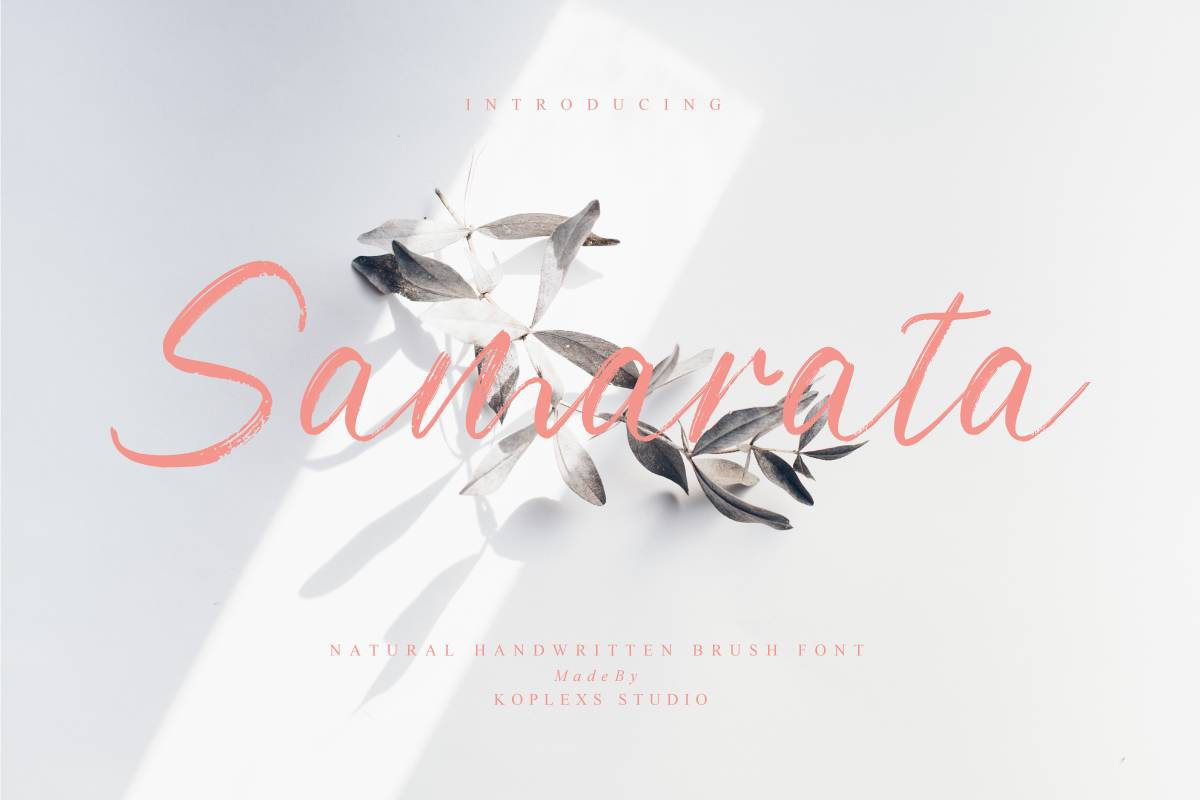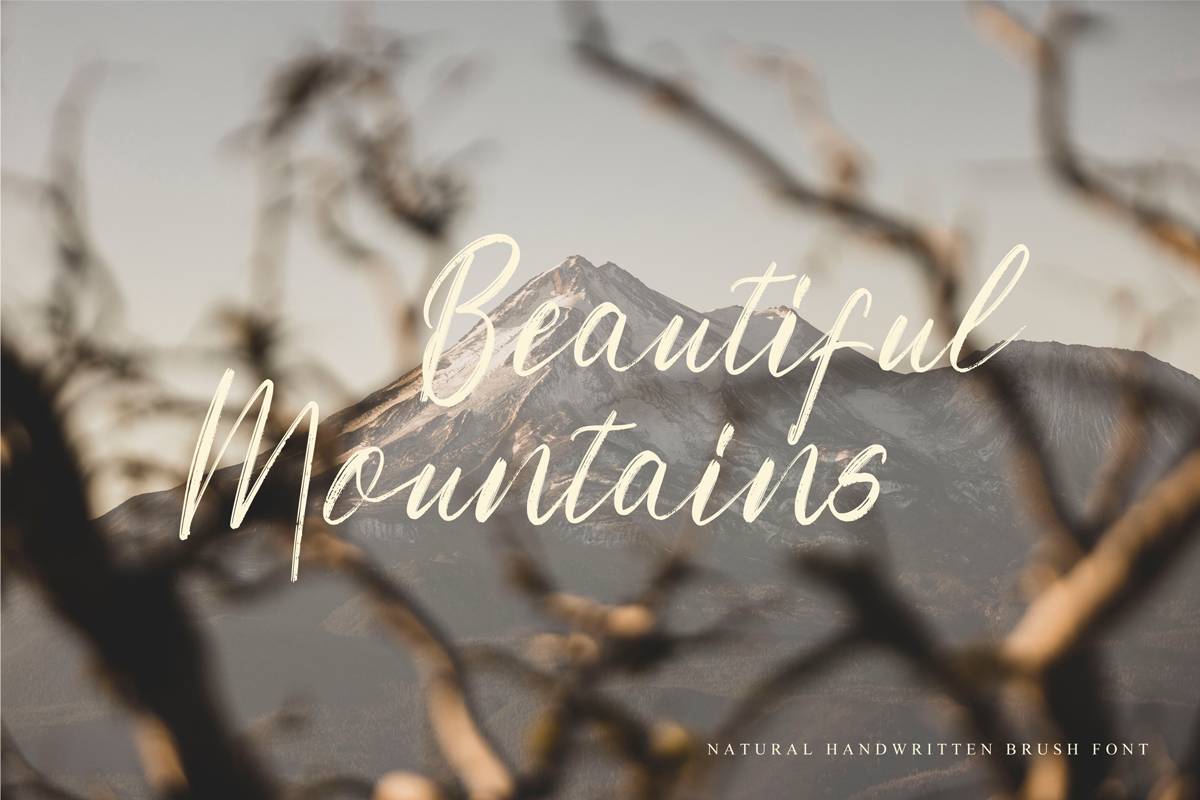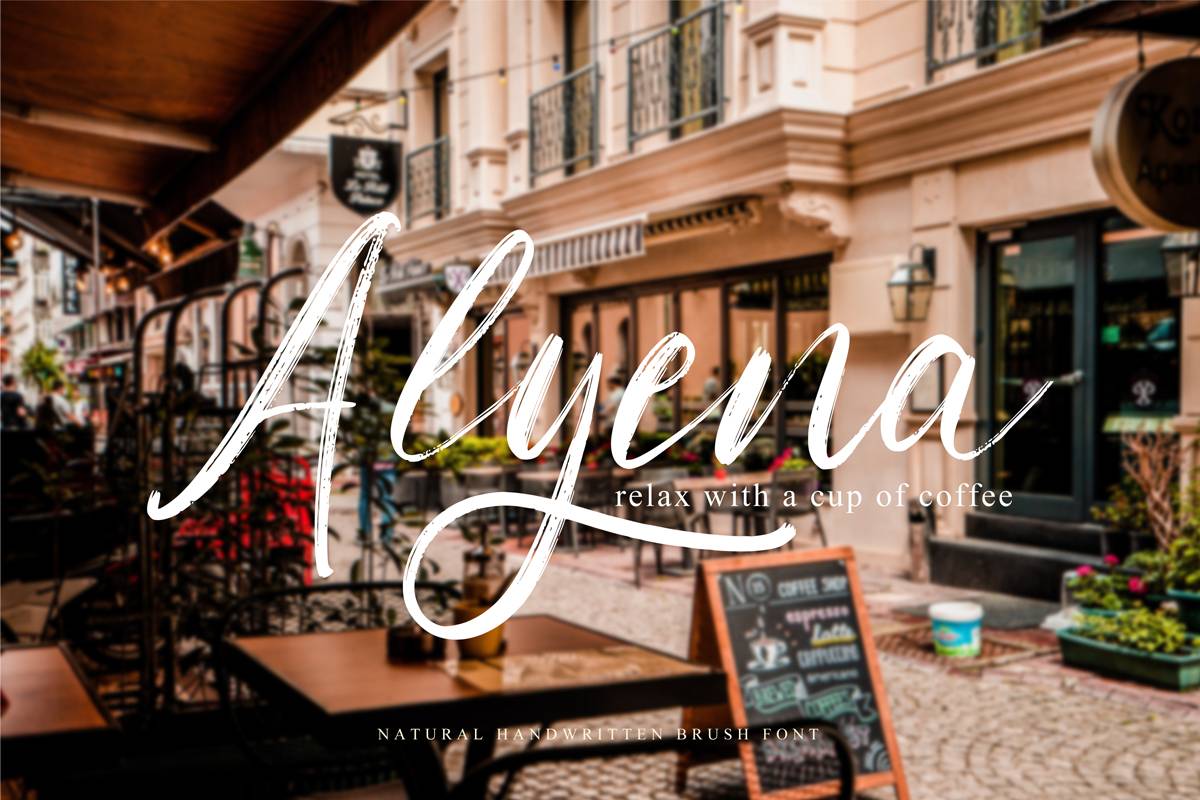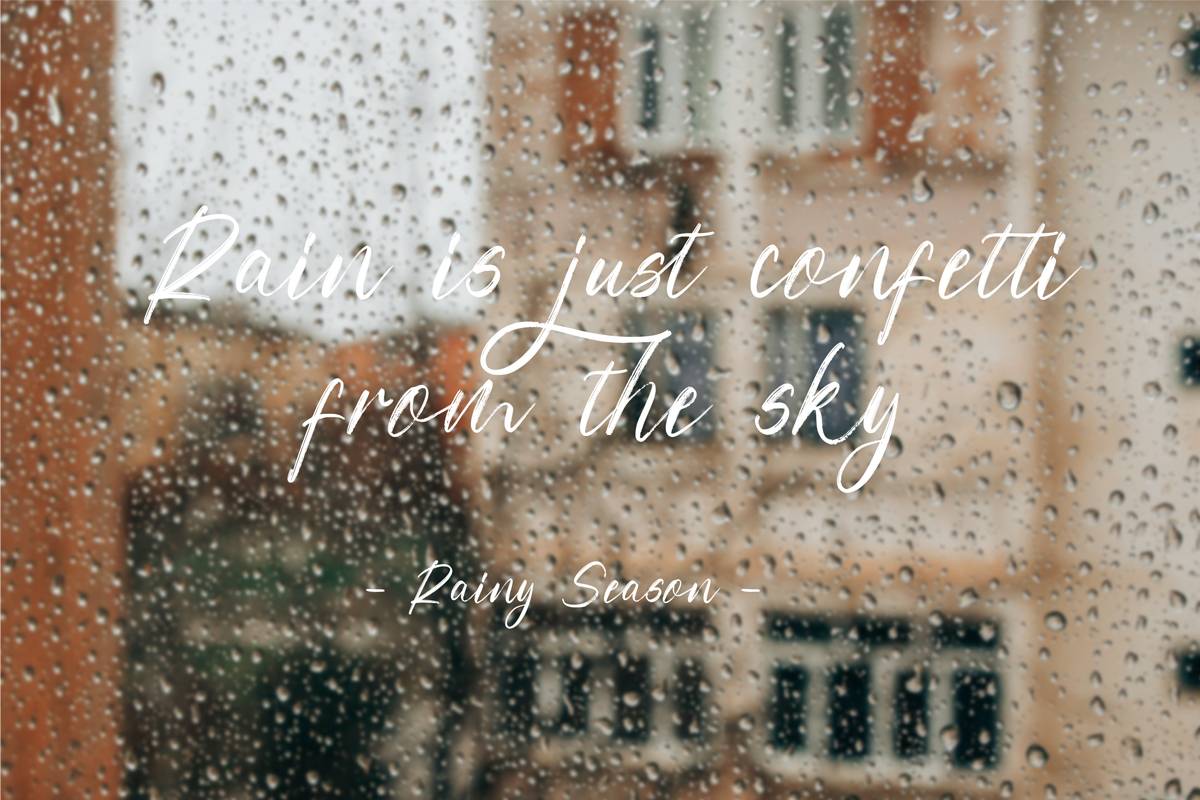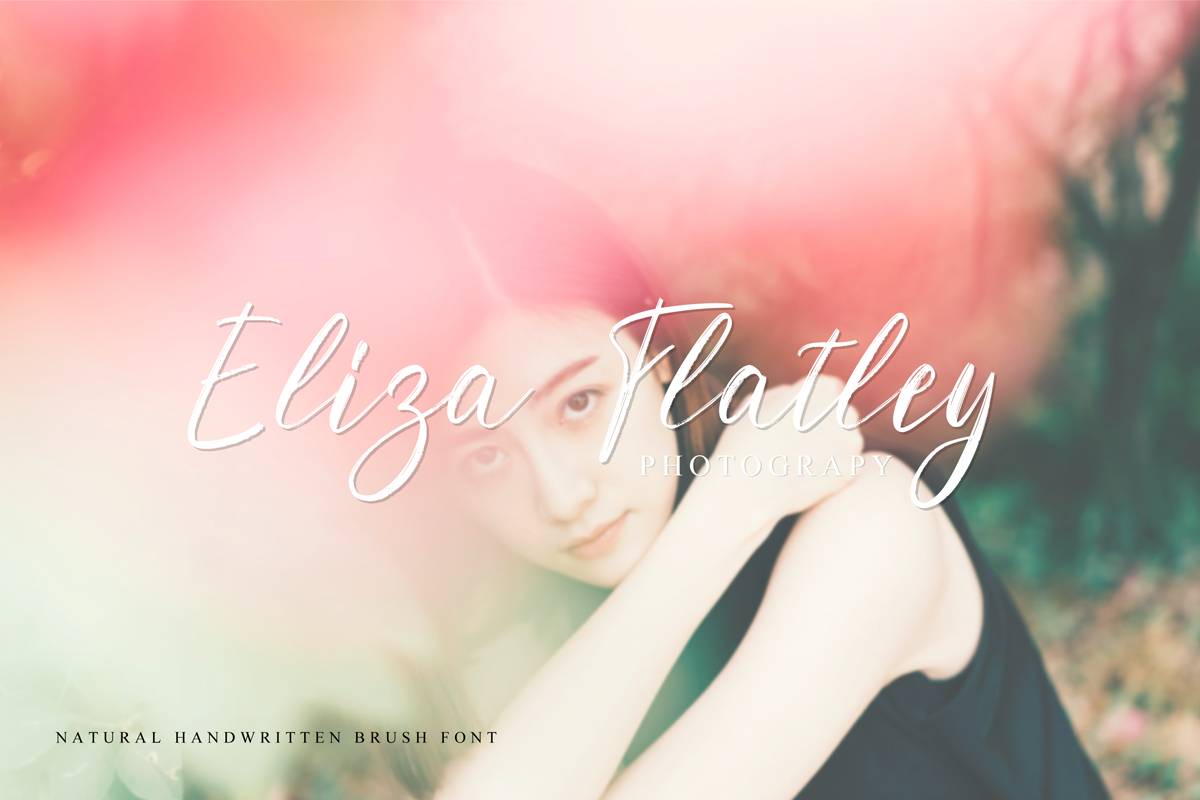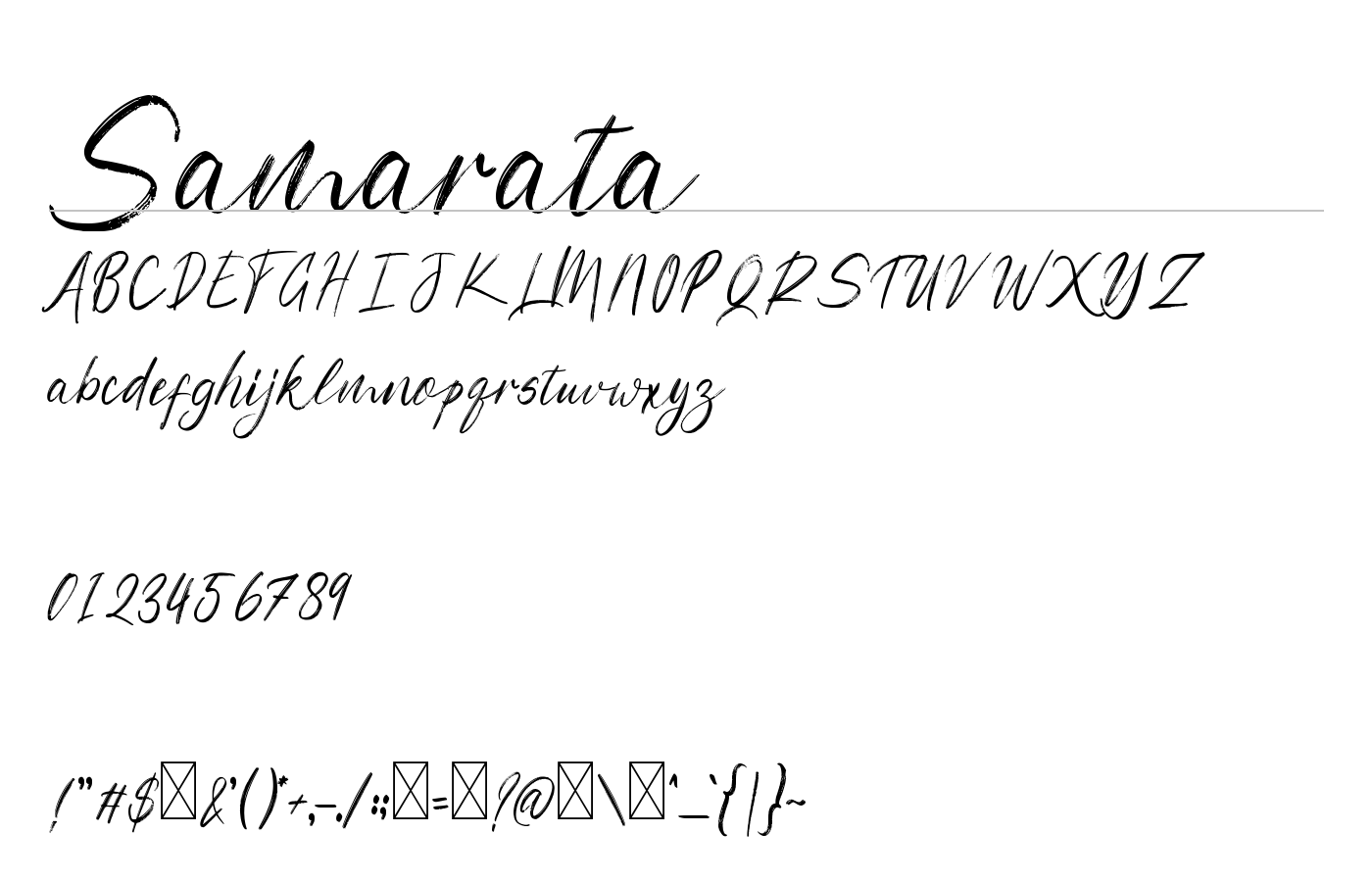
Samarata is a delicate script font with a hand-painted feel, characterized by its slim, flowing strokes and subtle texture that adds a touch of authenticity and warmth. Its elegant, slightly informal style makes it perfect for creative branding, invitations, and any design that aims to convey a personal, artistic touch. This font works well in headline or display contexts where a graceful yet approachable look is desired.
Samarata Font
About Samarata Font
| Font family | Samarata Font |